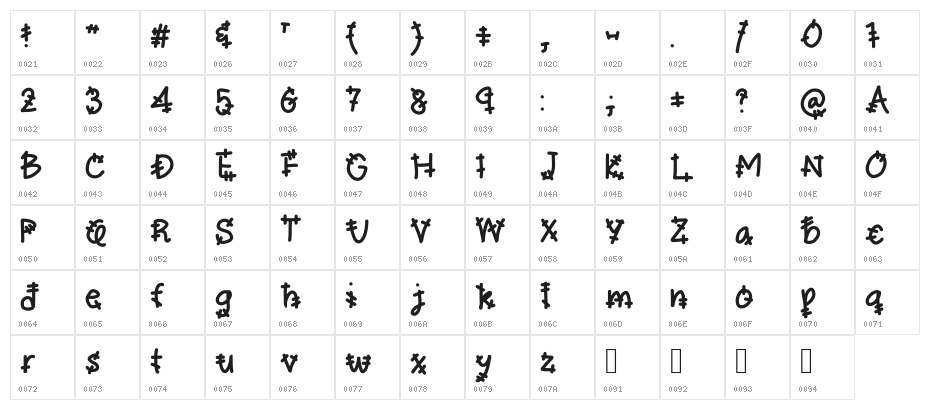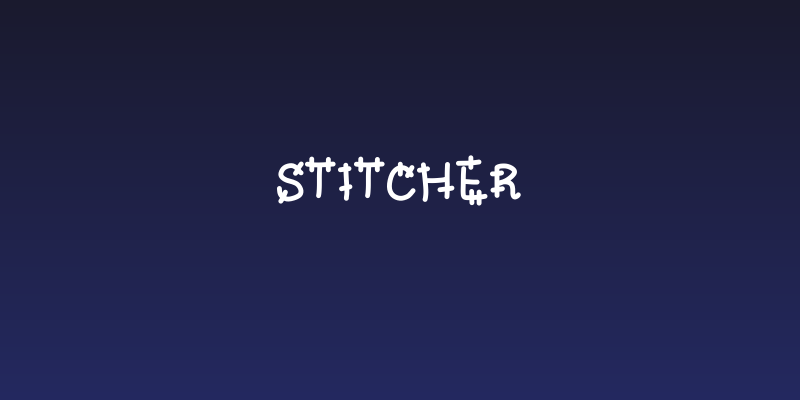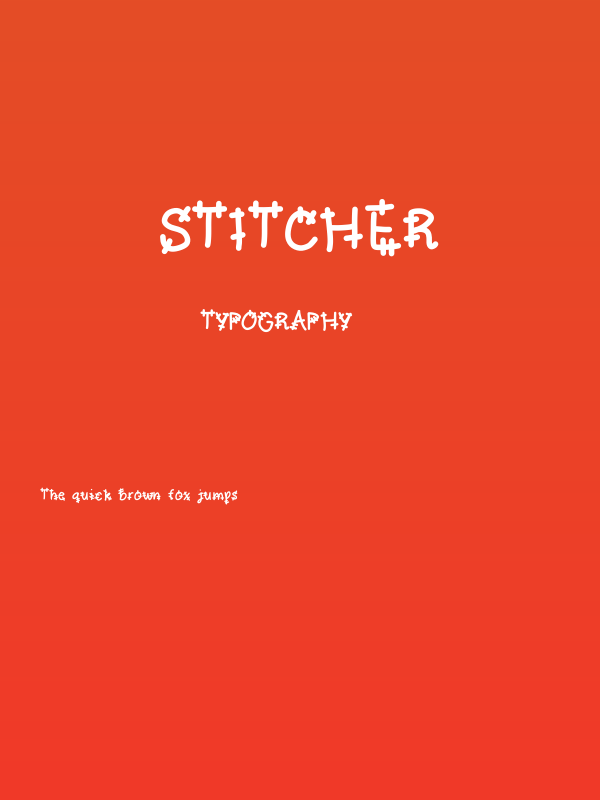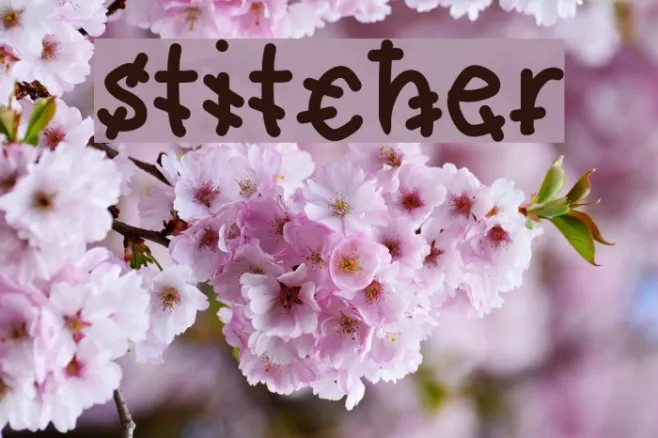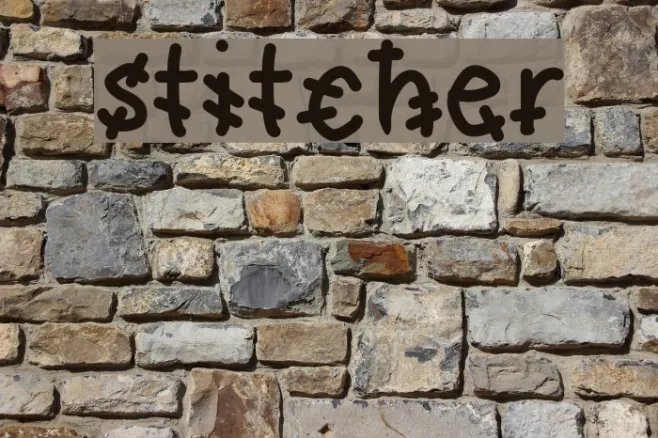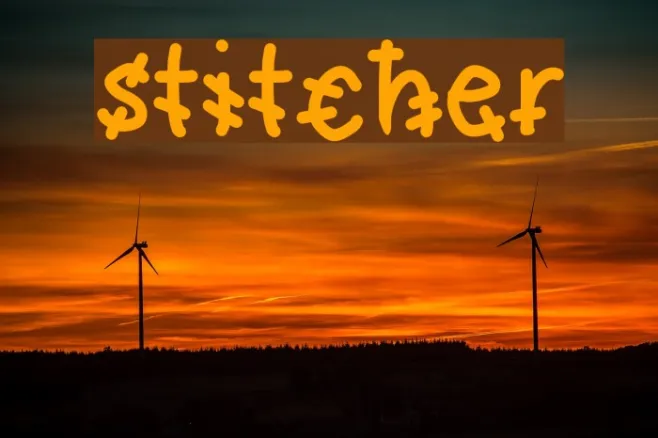
stitcher Font
stitcher Description
This font features a playful and whimsical design, characterized by its unique, stitched appearance. Each letter is adorned with small, cross-like embellishments that mimic the look of stitches, giving it a handcrafted and artistic feel. The font maintains a consistent thickness throughout, ensuring readability while still offering a decorative flair. The rounded edges and slightly irregular shapes add to its charm, making it ideal for creative projects. The numbers and special characters are designed with the same stitched motif, ensuring a cohesive look across all elements.